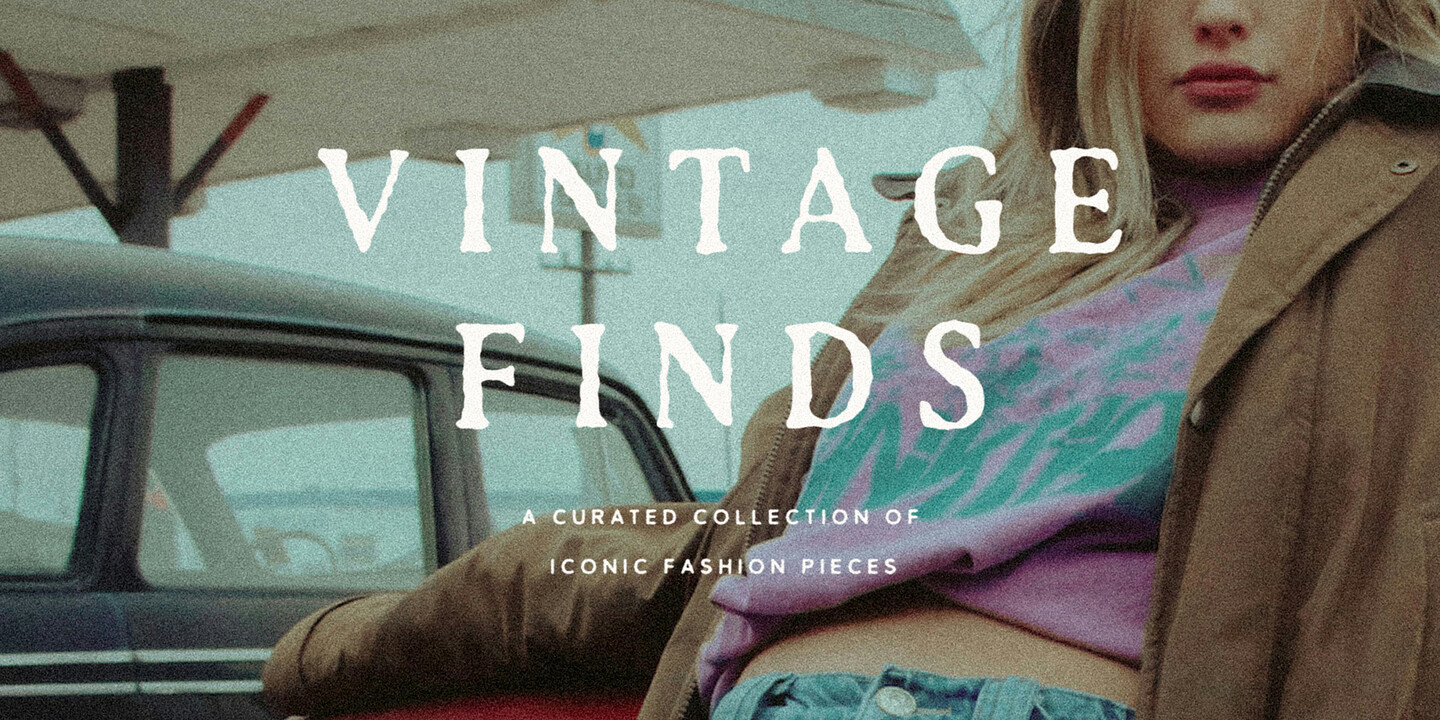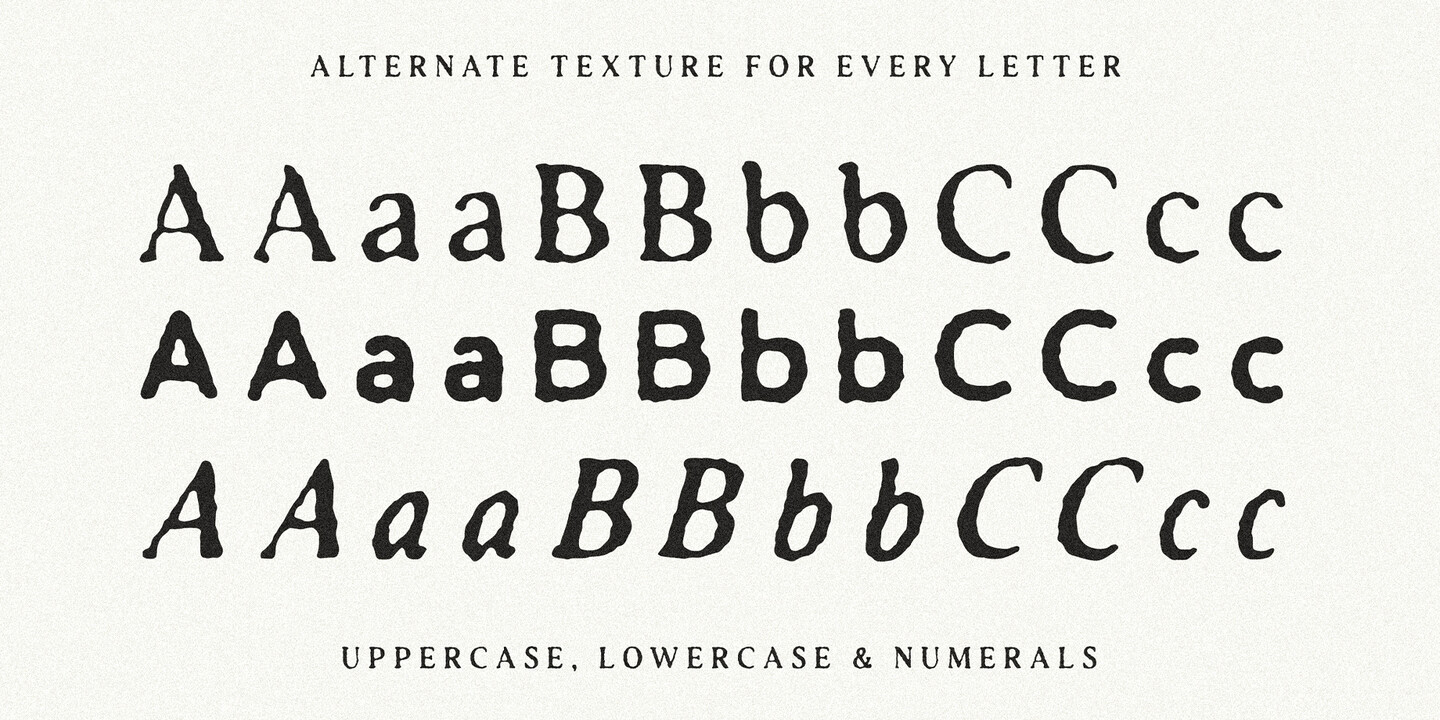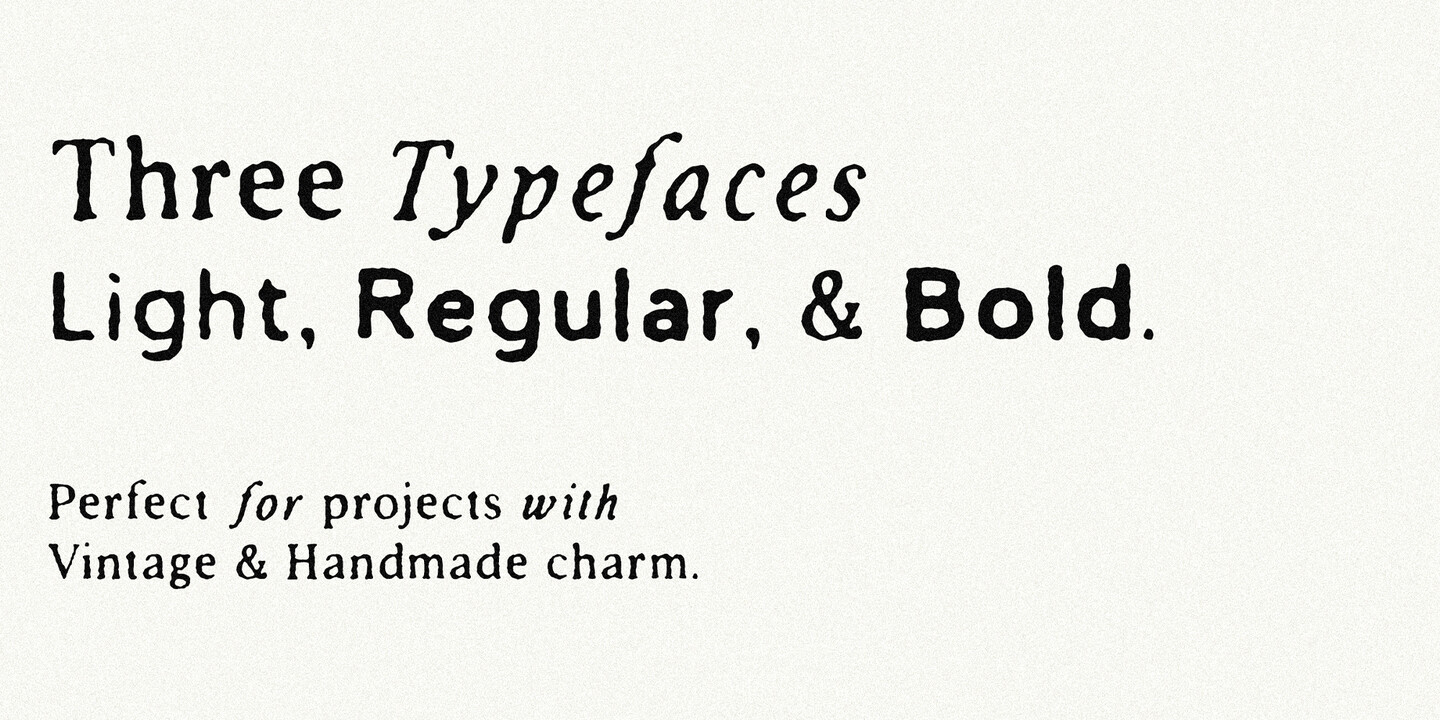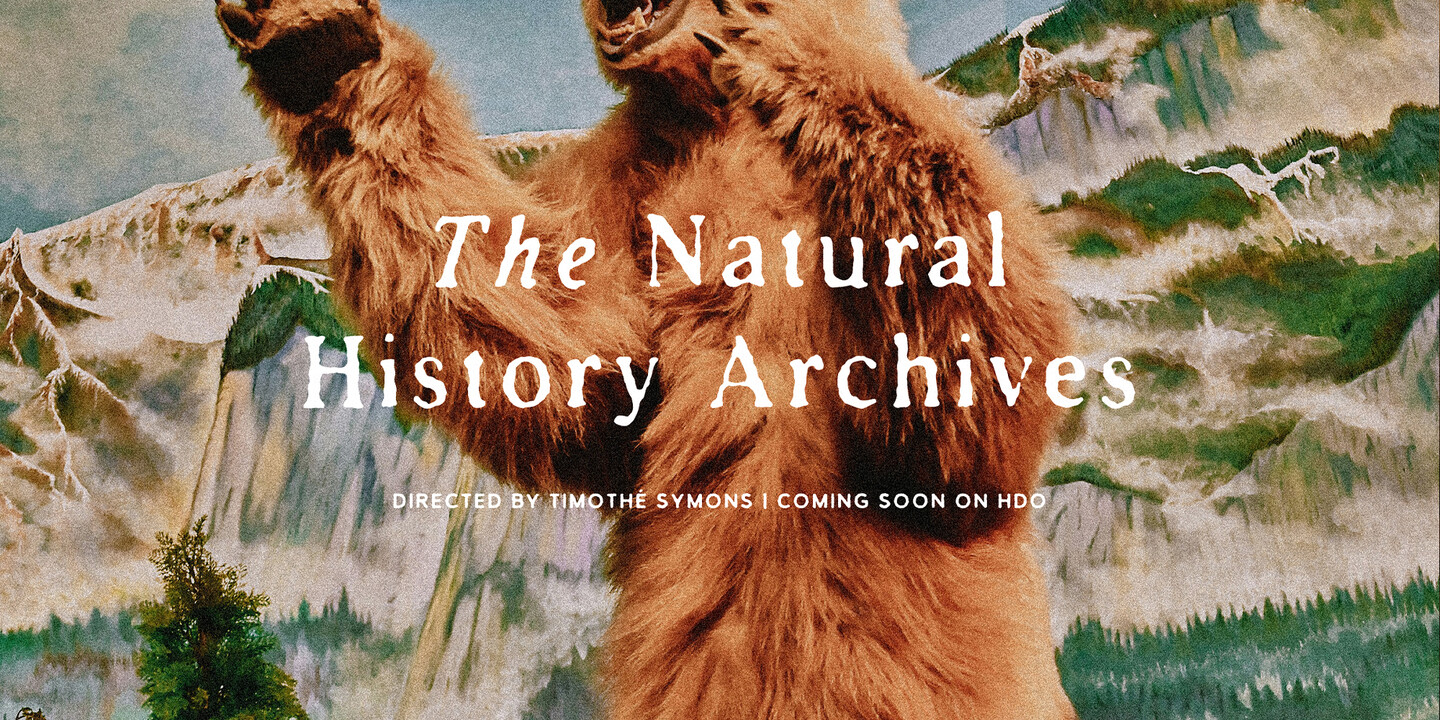
Introducing the TC Antiquated vintage-inspired font collection! This versatile trio of typefaces, each available in three distinct weights, has been designed to be a wonderful blend of modern and rustic styles.
This collection is ideal for modern branding projects with a vintage twist, rustic wedding invitations and stationery, history-themed design projects, and editorial work! I especially enjoy using these fonts in smaller sizes with wide spacing as displayed throughout the presentation imagery.